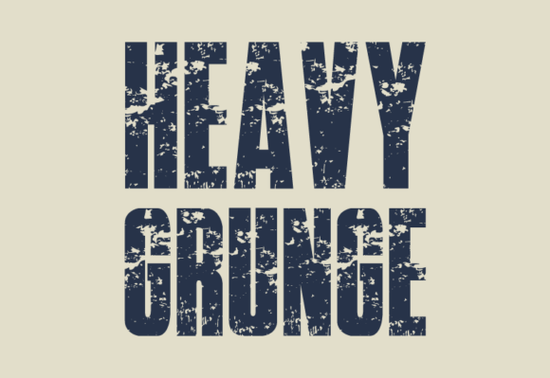
Designers, crafters, and small business owners looking for a bold, eye-catching typeface might find the Heavy Grunge Font to be an ideal choice. This unique sans-serif font combines raw textures with a strong visual presence, making it perfect for projects that demand attention. Whether you're creating posters, album covers, or branding materials, the Heavy Grunge Font adds a distinctive edge that stands out from the crowd.
The Heavy Grunge Font is designed with a focus on texture and contrast. Each letterform features a distressed look, giving it a rugged, handmade feel. This makes it especially suitable for creative projects that aim to convey a sense of rebellion or non-conformity. Its unapologetic style can bring a new level of depth to your designs, helping you express your message in a more impactful way.
What Makes Heavy Grunge Stand Out?
One of the key features of the Heavy Grunge Font is its ability to add visual interest without overwhelming the design. The combination of bold strokes and textured details creates a dynamic look that works well in both digital and print formats. It’s not just about being loud it’s about being intentional. The font’s design encourages creativity while maintaining readability, making it a versatile tool for various applications.
If you’re working on a project that needs a strong visual identity, the Heavy Grunge Font can help set the tone. It’s particularly effective when used in conjunction with other design elements like background textures or contrasting colors. This font is ideal for those who want to make a statement without sacrificing clarity or professionalism.
Best Uses for Heavy Grunge Font
The Heavy Grunge Font is great for a wide range of design projects. For example, it works well for:
- Posters and banners that need a striking visual impact
- Album art and music-related branding
- Streetwear and apparel designs that require a rebellious aesthetic
- Marketing materials for brands that want to stand out
Its versatility means it can be used in both modern and vintage-style designs, depending on how you incorporate it. You can pair it with simpler fonts to create balance or use it as the main text element for maximum effect.
How to Use Heavy Grunge Effectively
To get the most out of the Heavy Grunge Font, consider the following tips:
- Use it sparingly: Because of its bold nature, it’s best to use this font in smaller amounts to avoid overwhelming the viewer.
- Pair it with clean fonts: Combining it with a simpler typeface can create a nice contrast and improve readability.
- Experiment with color: The font’s texture can be enhanced by using complementary or contrasting colors.
By understanding how to use the Heavy Grunge Font effectively, you can ensure it enhances your design rather than detracts from it.
Whether you're a designer, a small business owner, or a creative hobbyist, the Heavy Grunge Font offers a powerful way to express your vision. Its unique style and strong presence make it a valuable addition to any design toolkit.